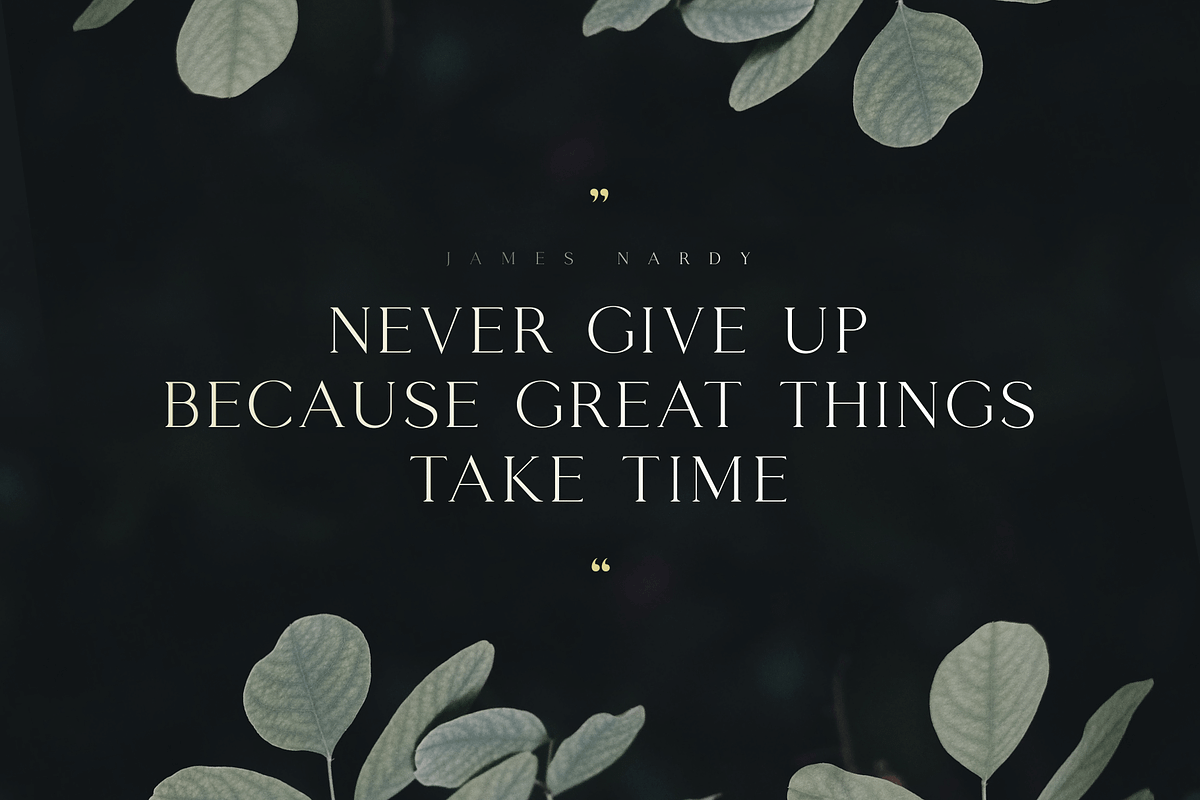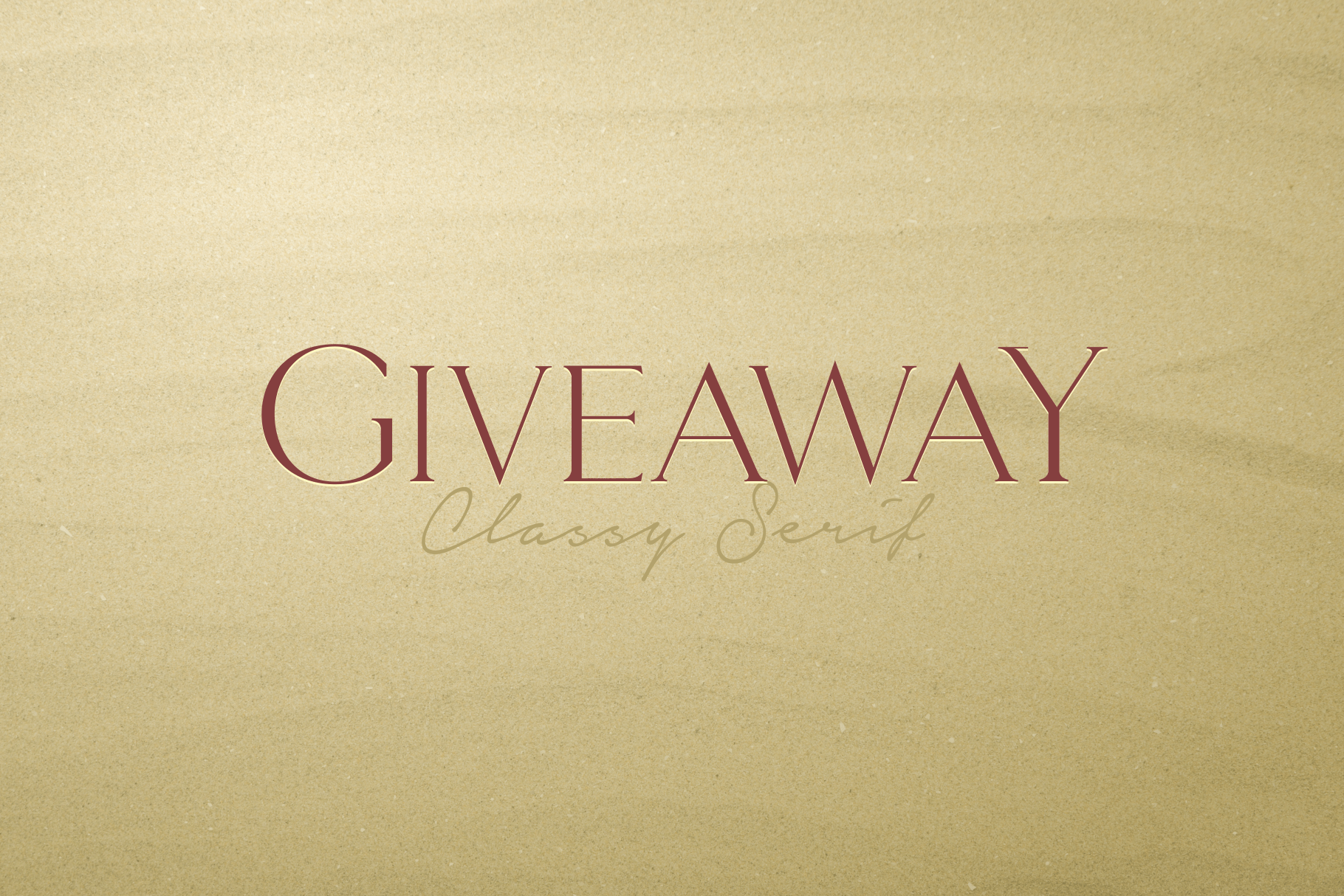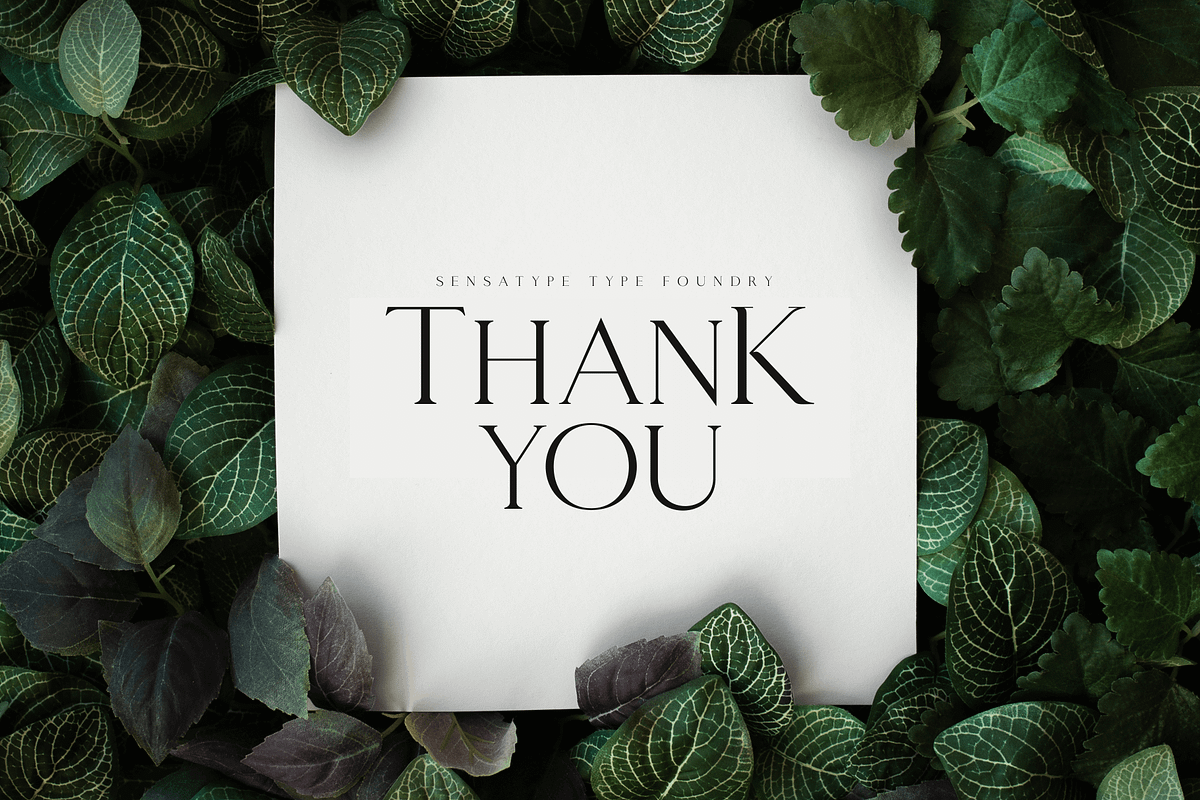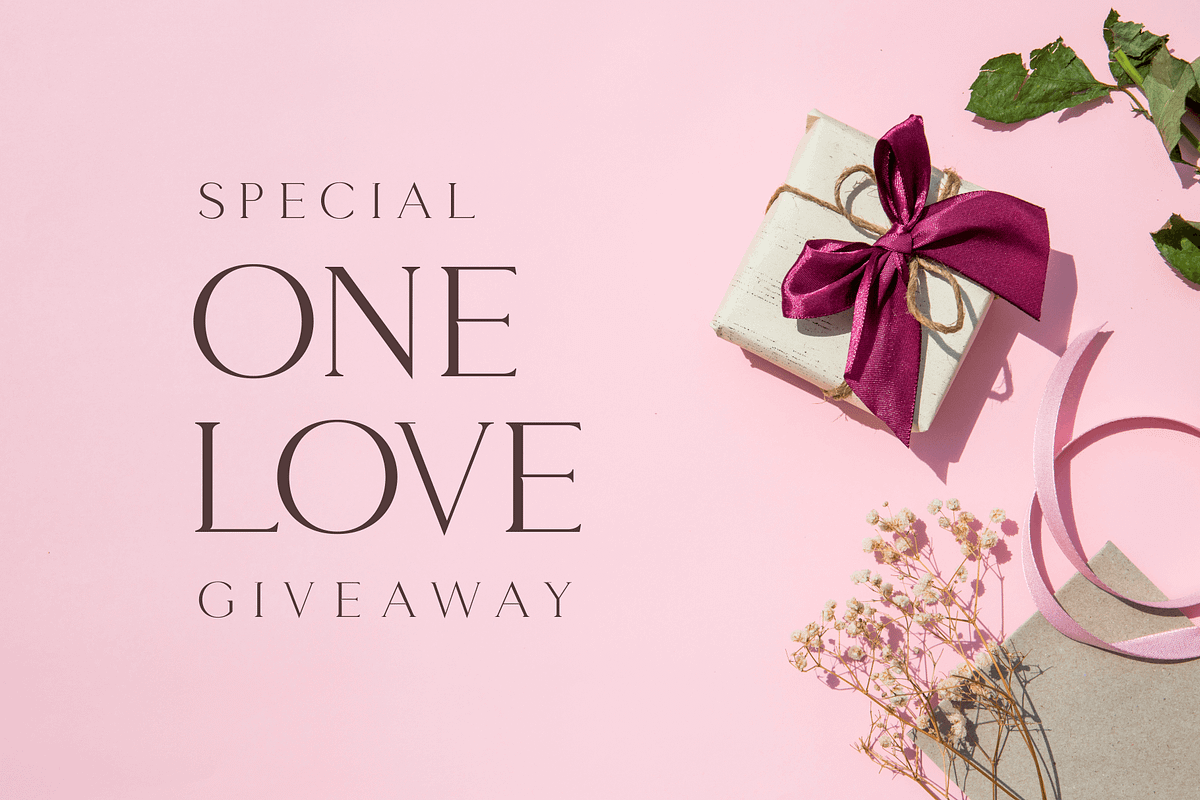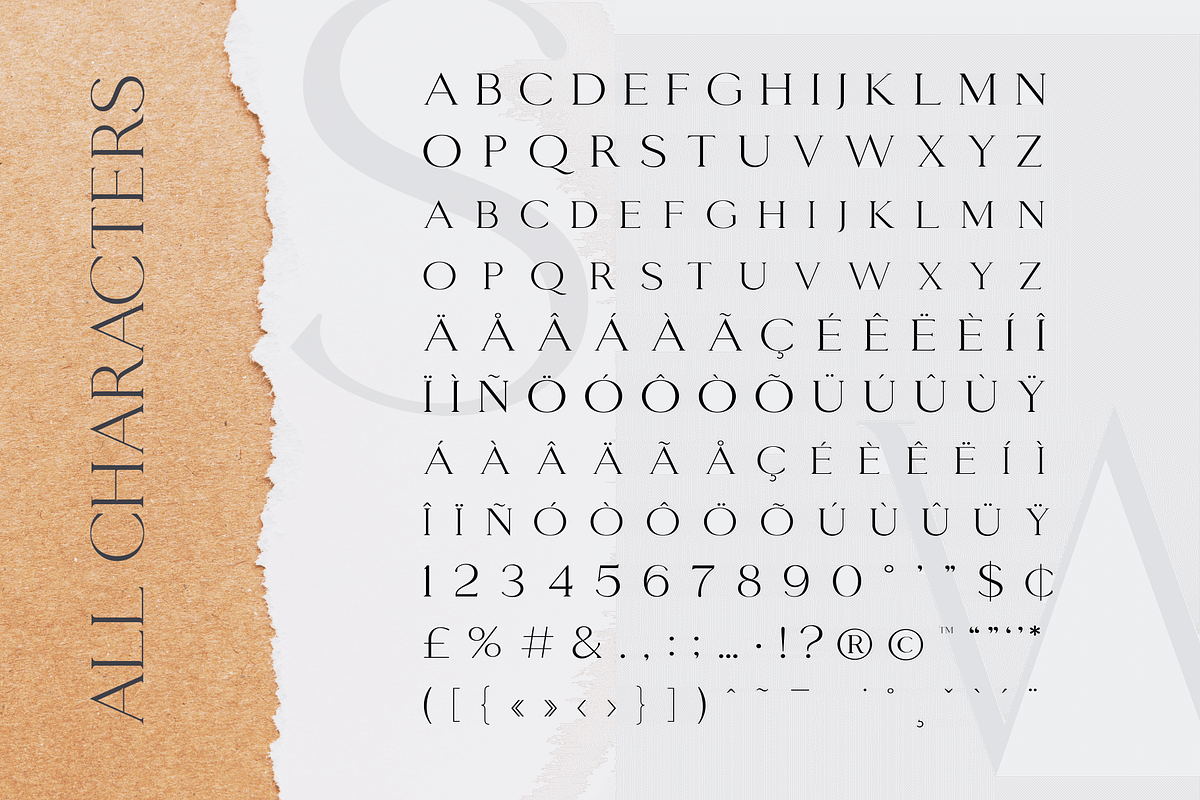
Giveaway - Classy Serif Font
Giveaway Classy Serif Font
Giveaway is a stylish classy serif font with casual-chic flair. It is perfect for branding, wedding invites, hangtag, quotes, Instagram posts, profiles, cover, album preview, cards, and maybe for some project.